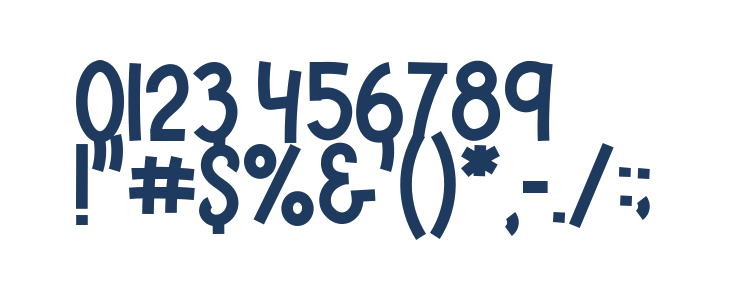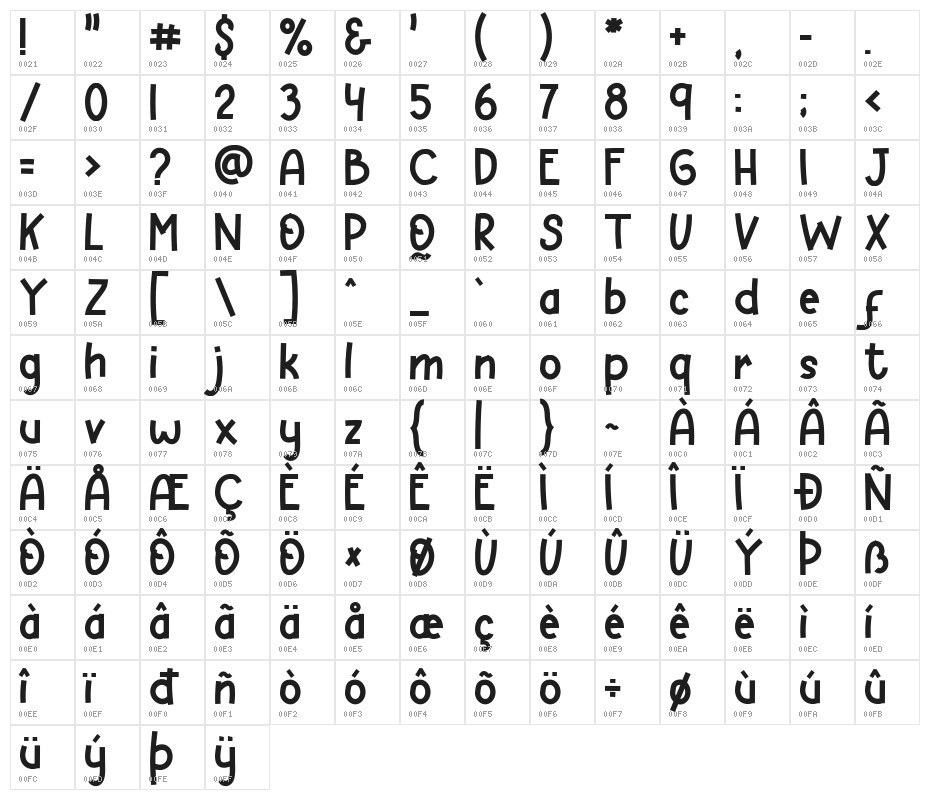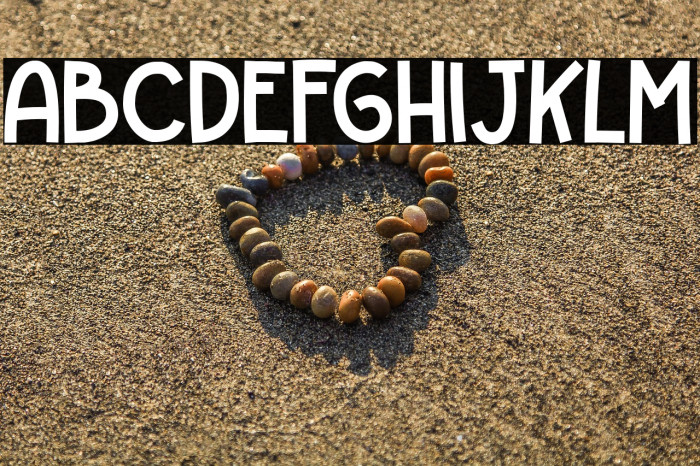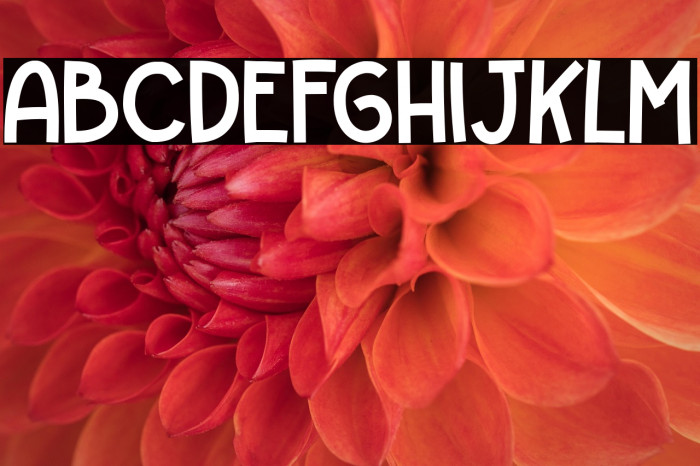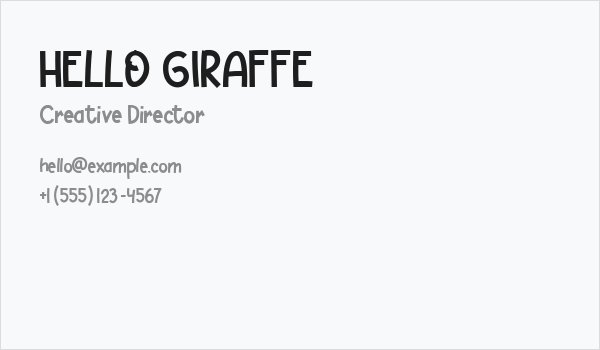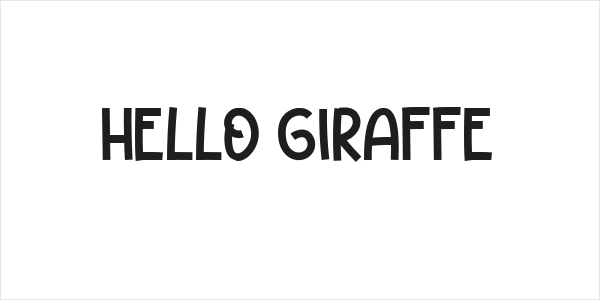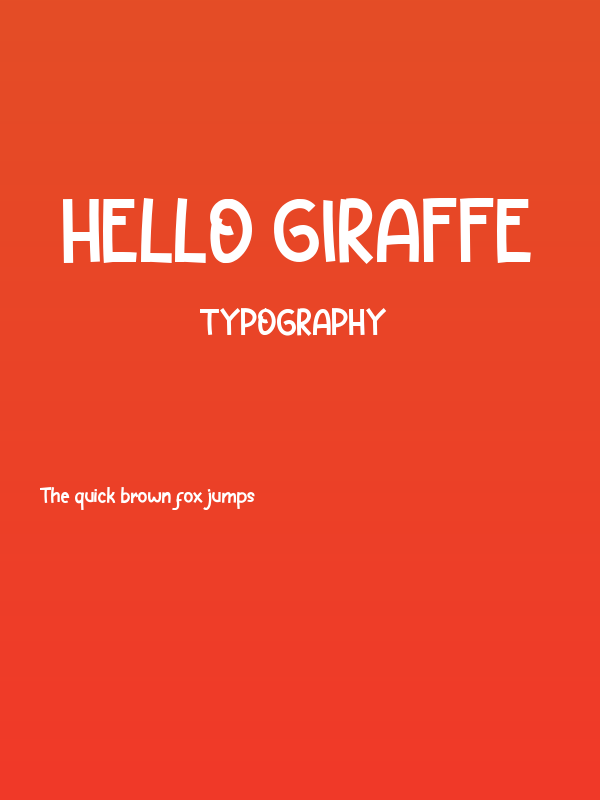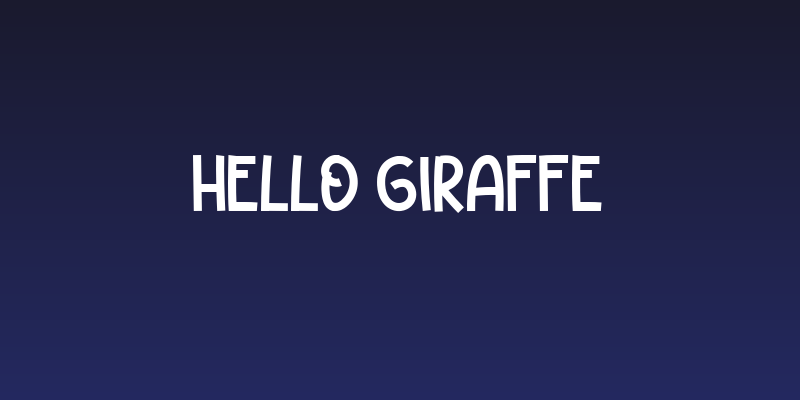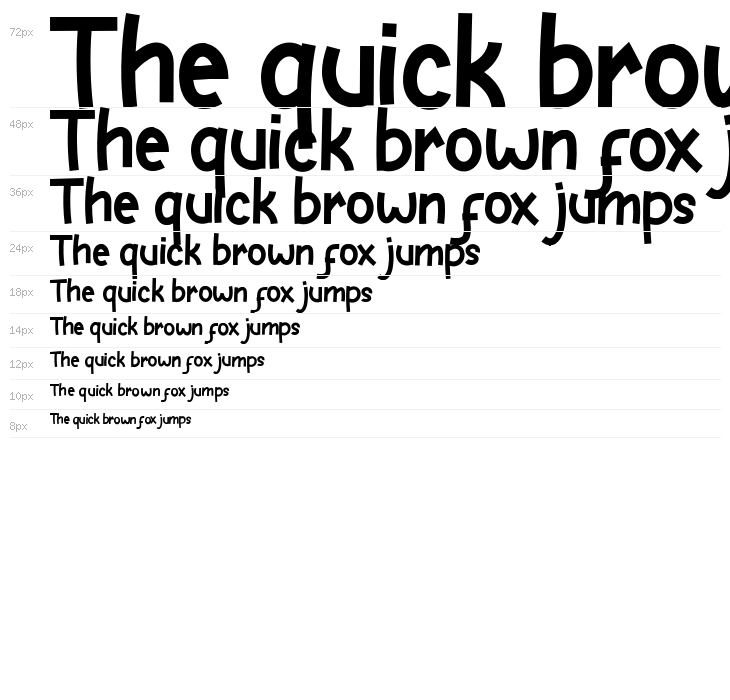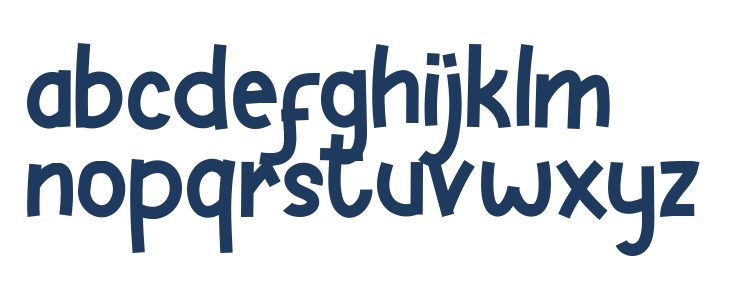
HELLO GIRAFFE Font
HELLO GIRAFFE Description
This playful and whimsical font features bold, rounded characters with a hand-drawn appearance. The uppercase letters are slightly irregular, adding a sense of fun and creativity. The lowercase letters maintain a consistent style, complementing the uppercase with their quirky shapes. Numbers and special characters follow the same playful design, making the font versatile for various uses. The overall look is informal and friendly, perfect for projects that require a touch of personality and charm. The font's unique style makes it stand out, while still being legible and easy to read.
| Overall Style | Whimsical |
| Proposed Projects | Ideal for children's books, playful branding, greeting cards, and creative posters. |